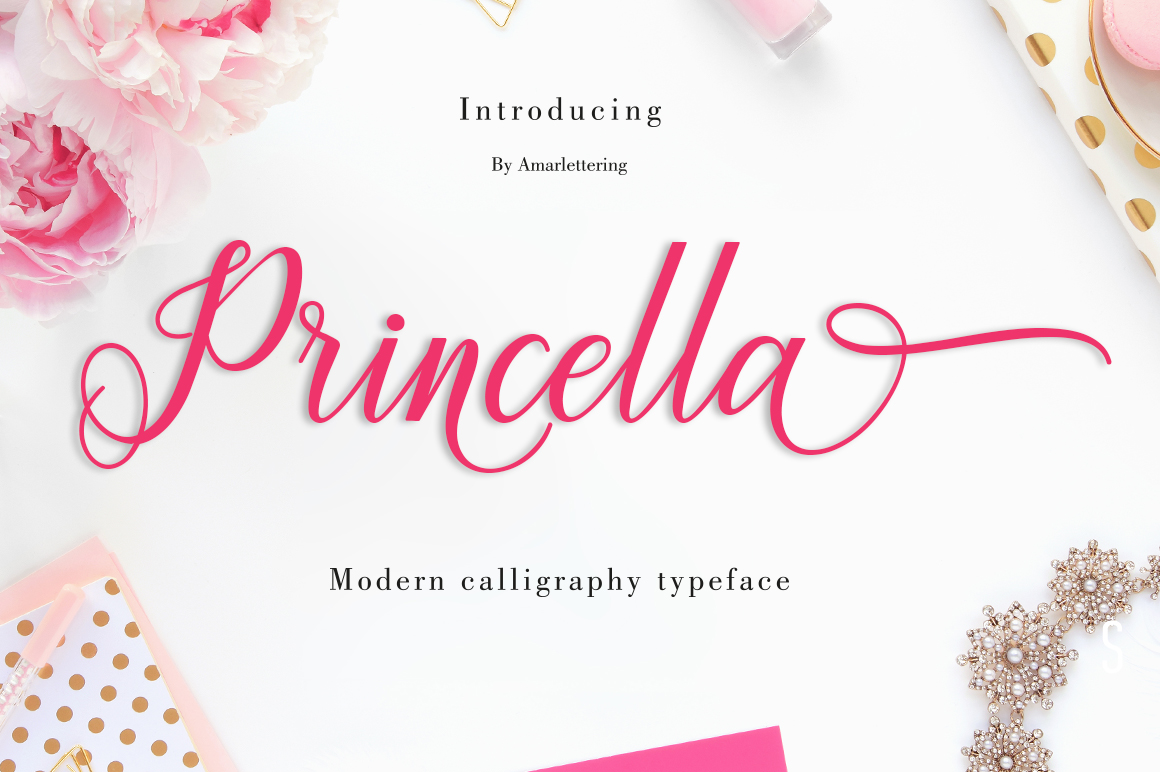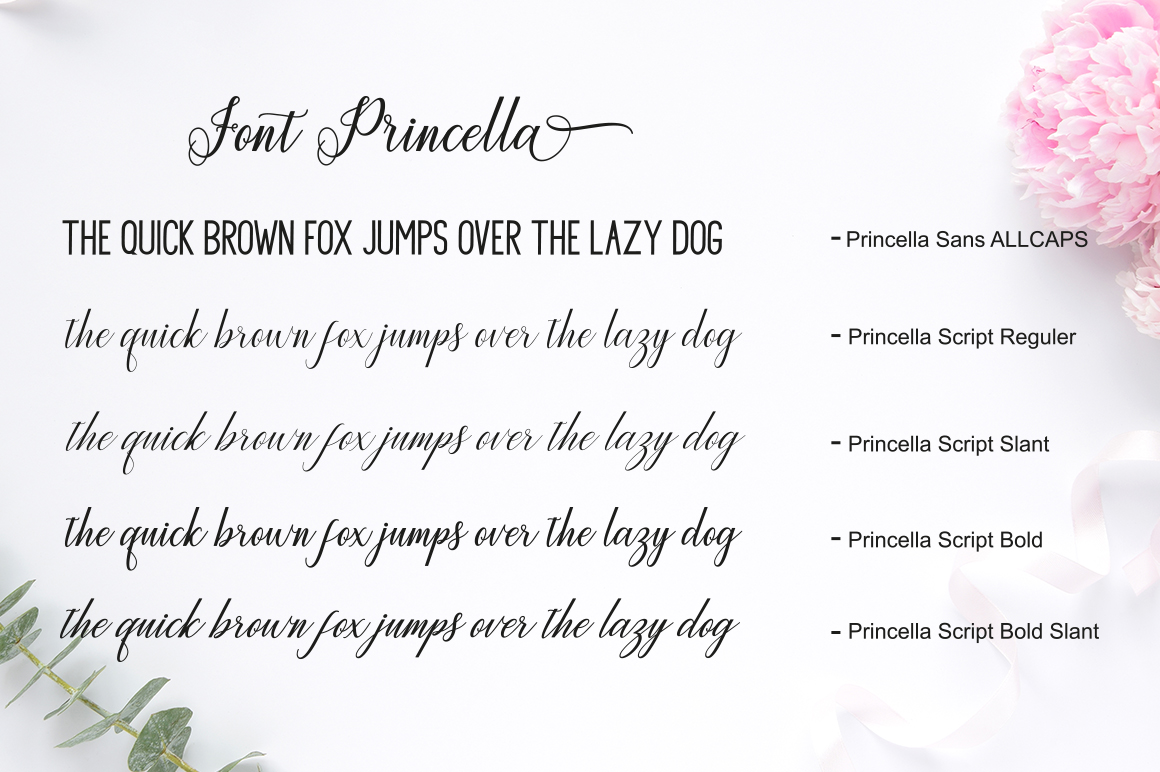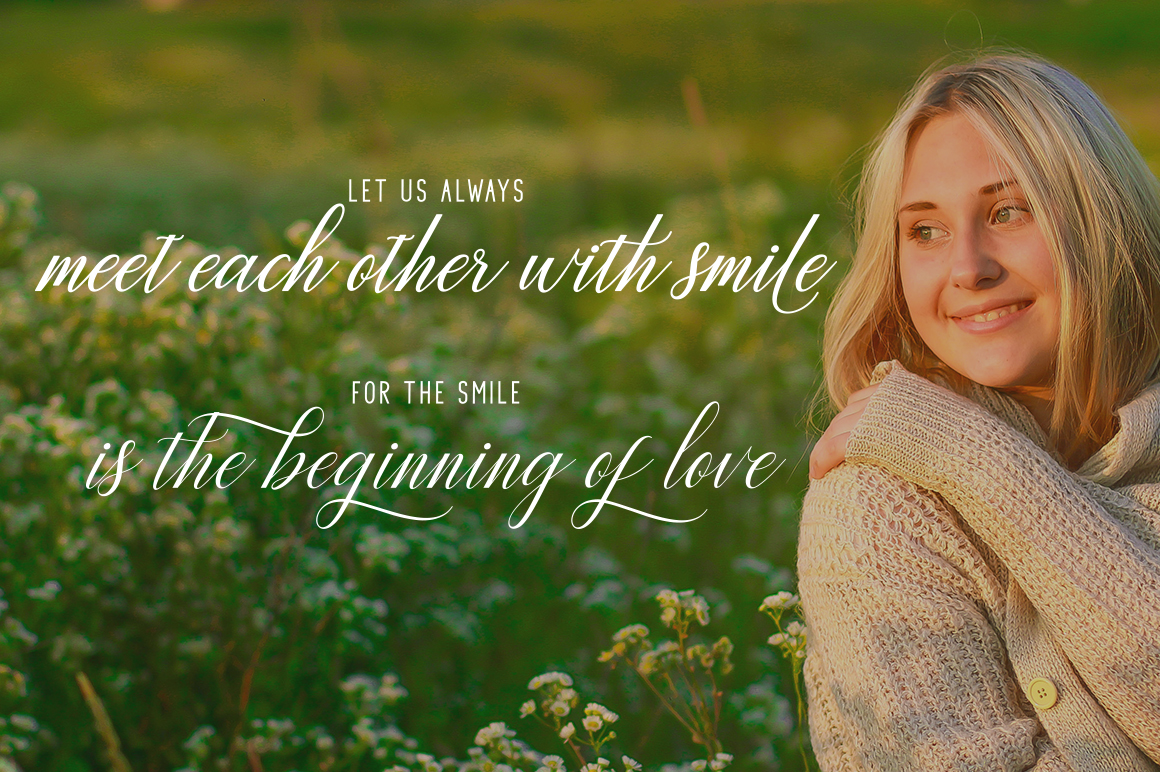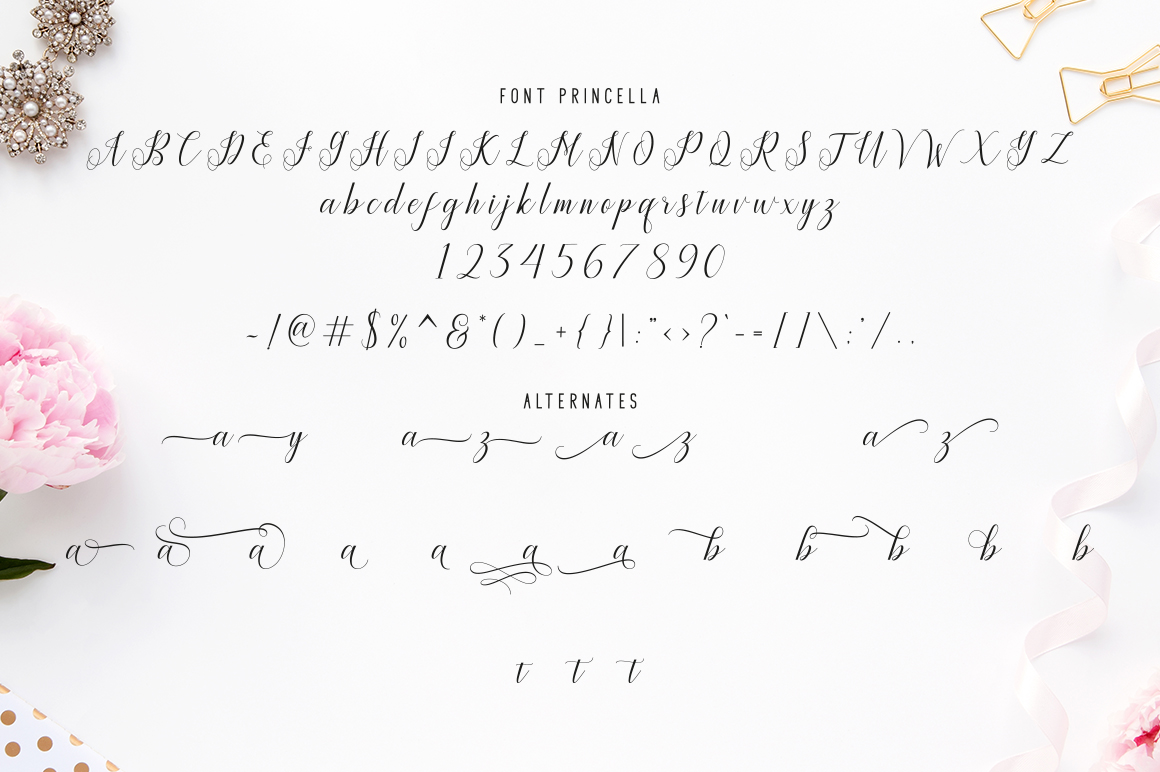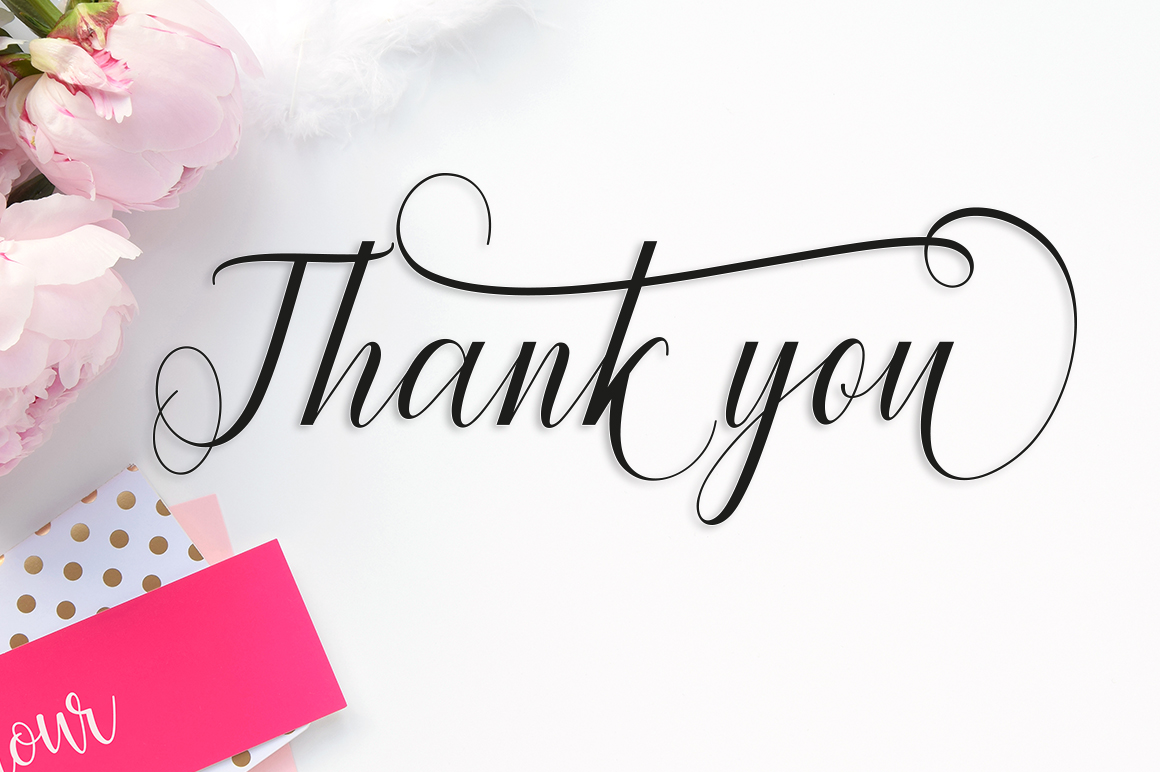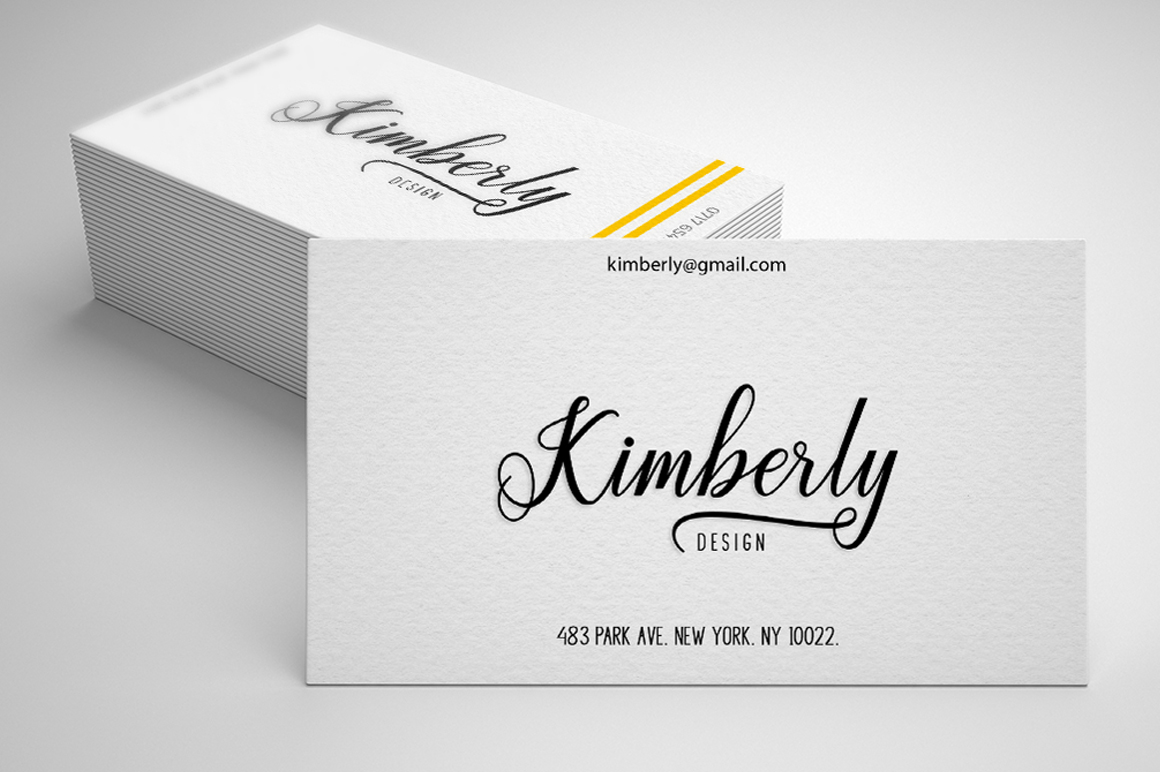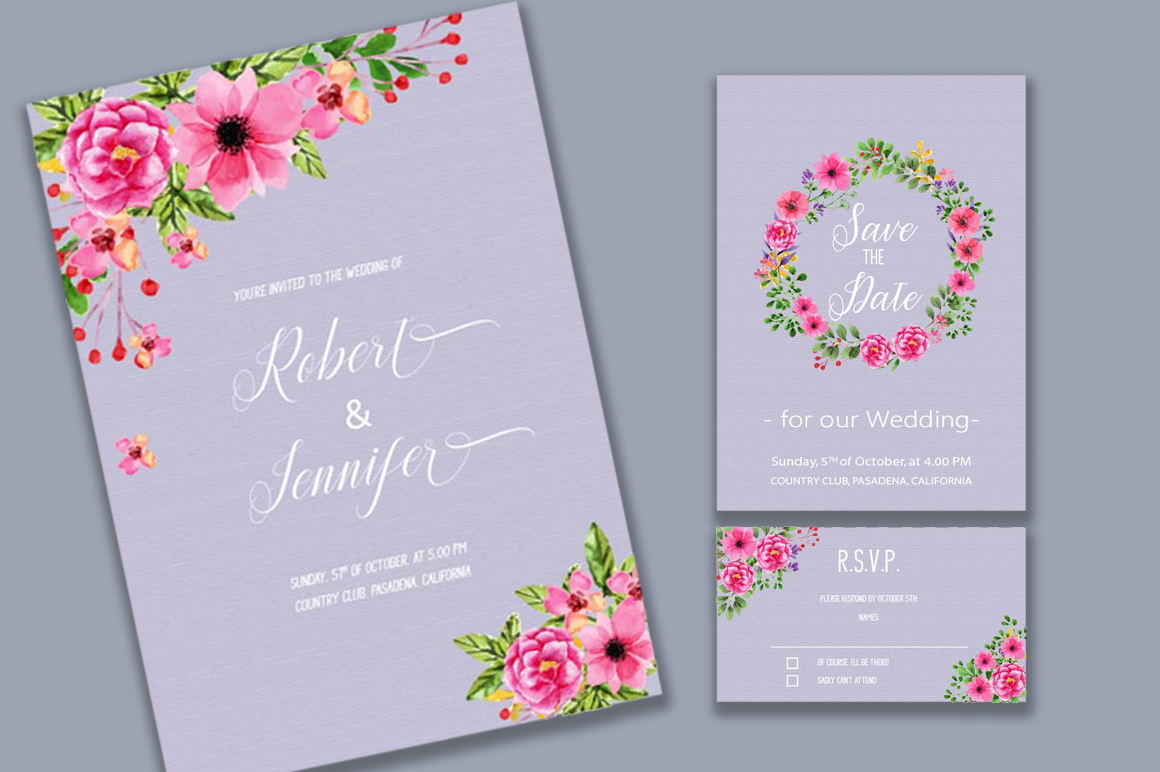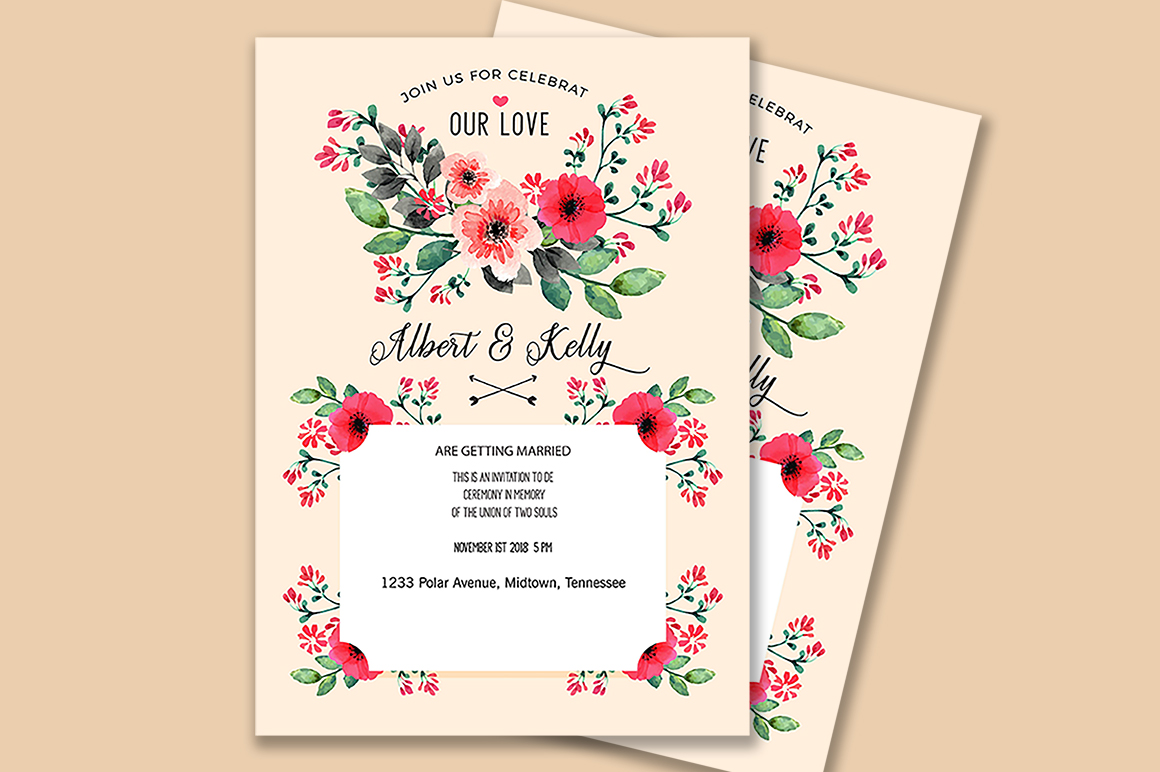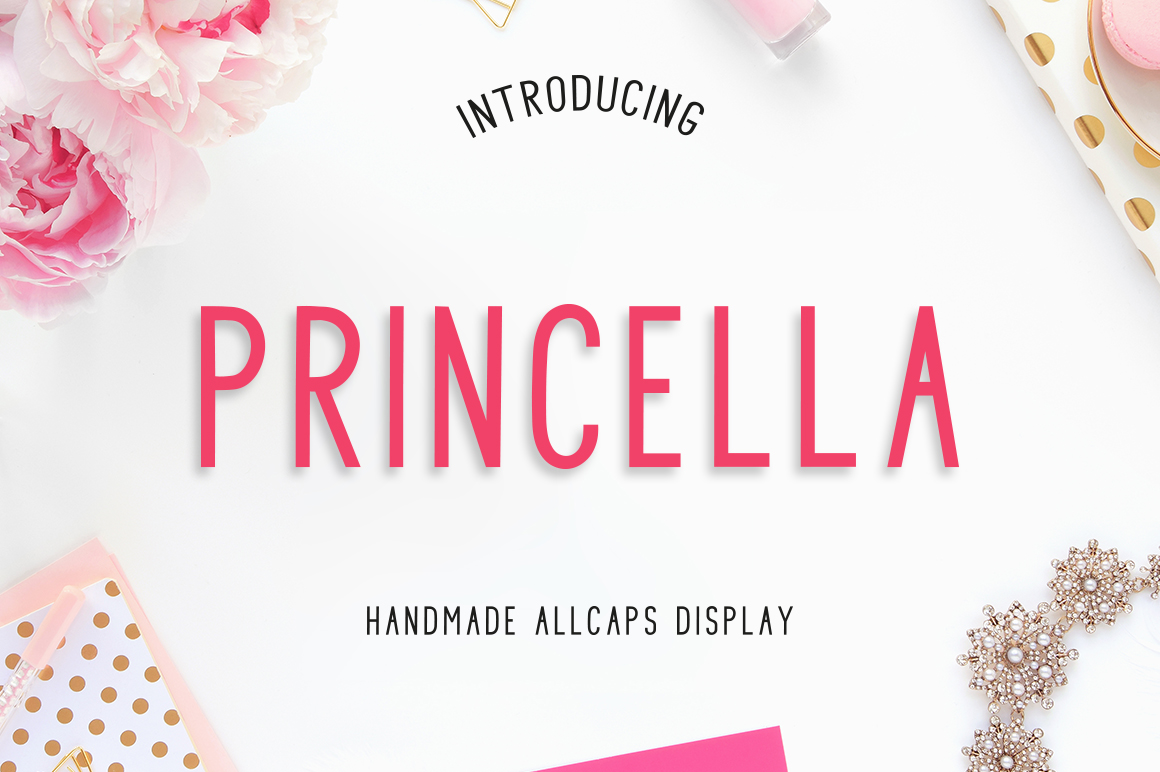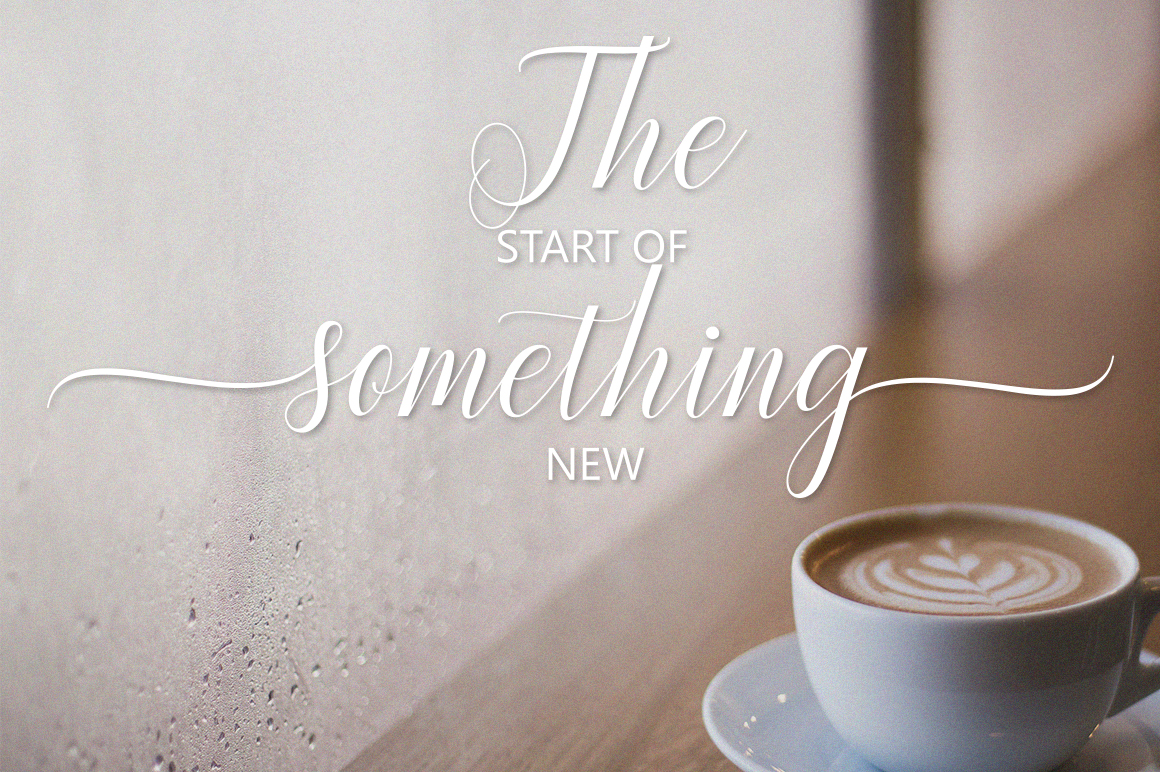
Princella Script Font
Princella is a modern font family that comes with 5 different variations: Regular, Slant, Bold, Bold Slant and a all-caps sans.
It features loads of alternates and can be used in many different types of projects.